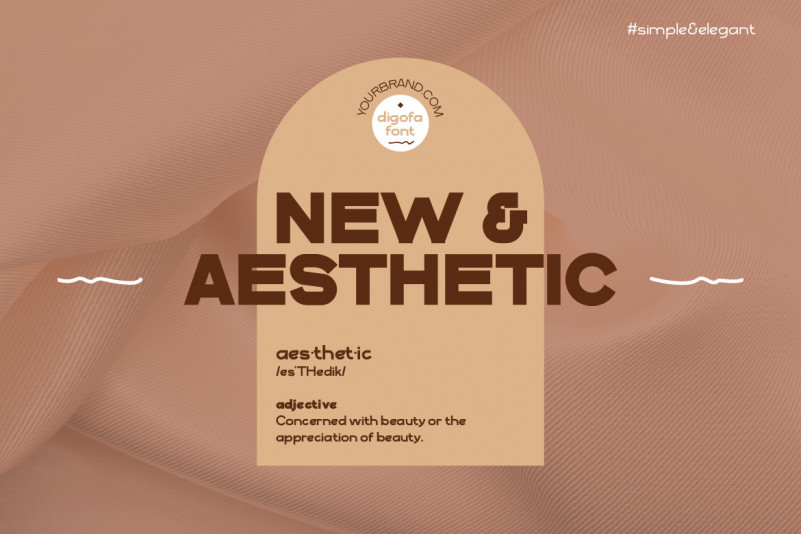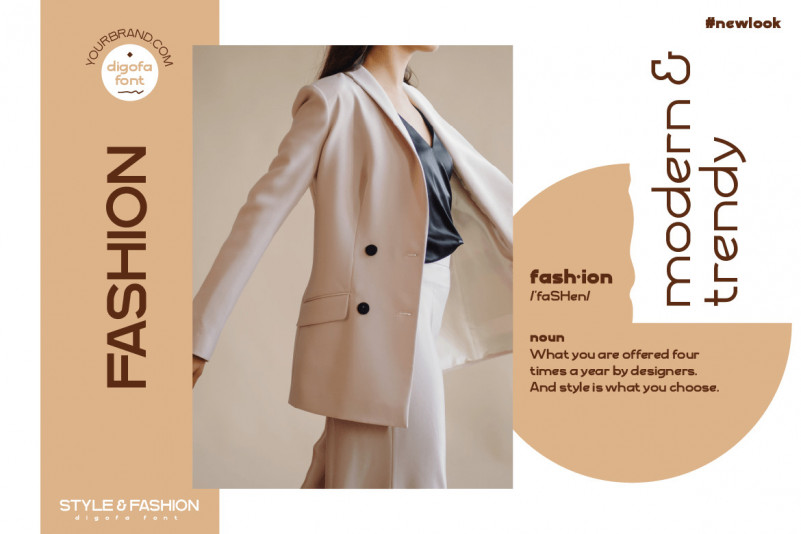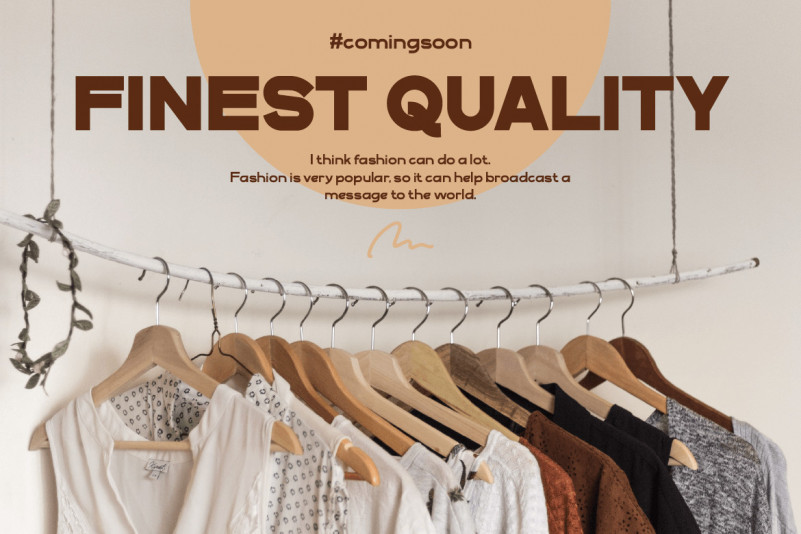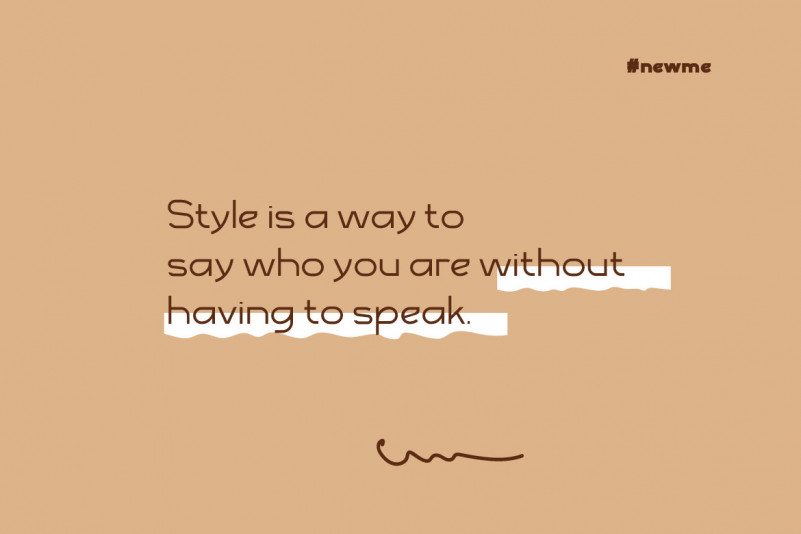
Digofa Font
Digofa Sans Serif Font
This is an aesthetic font, which in its use has a natural beauty and has a modern style. This clean font when you use it will create an elegant and beautiful impression. We designed this san serif family font by paying attention to the combination of each letter to create a beautiful impression and appearance, making it easier to answer your needs, both formal and non-formal needs. This font is perfect for a wide variety of design projects, sporting events, branding, banners, posters, movie titles, food and beverage, technology, quotes, clothing, logotypes, and more.
Of course, by using this font your various design projects will be perfect and amazing, because this font comes with a family of fonts, both for titles and subtitles and sentence text, start using our fonts for your amazing projects.